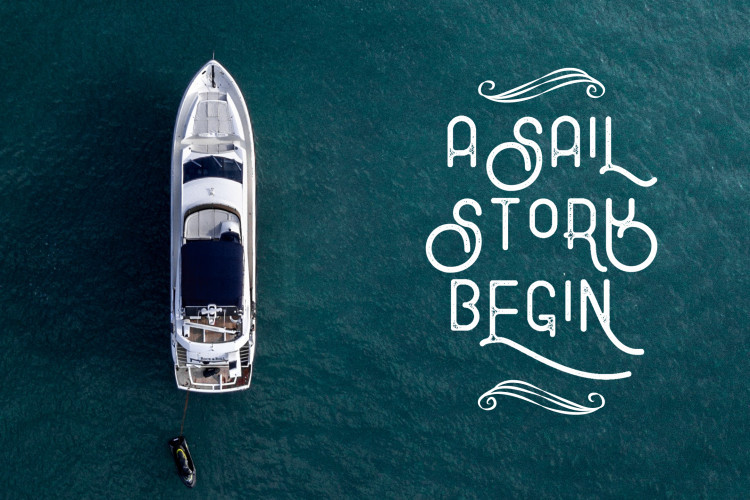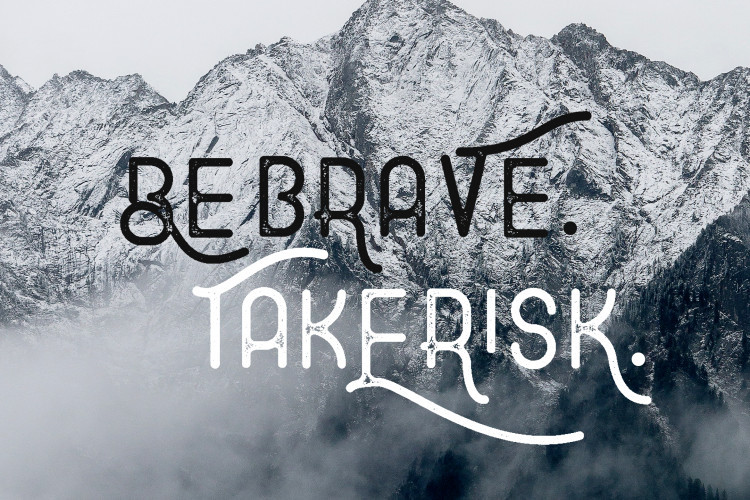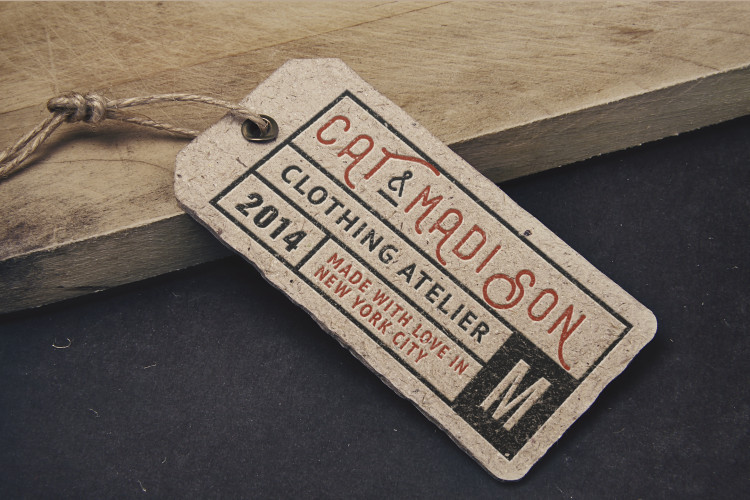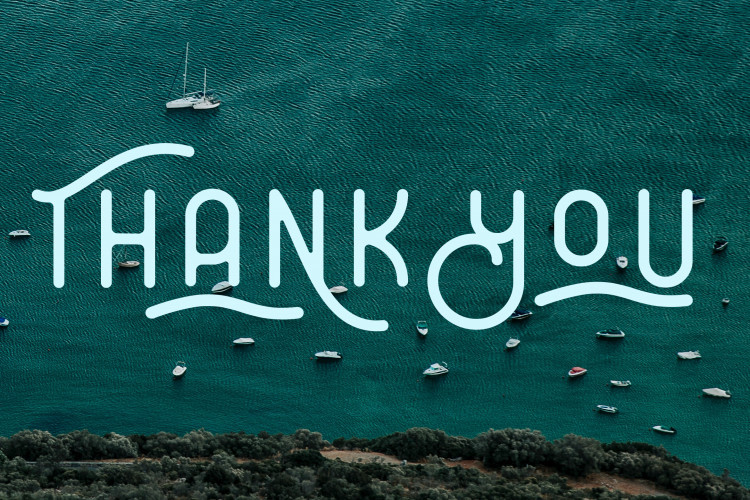
Befonts introducing a new handmade stamp effect typeface was built with a distressed vintage feel. Explore Stylish Font designed and shared by Akaitype Studio. A Stylish typeface with two style , regular and rough stamp. Lovingly handmade, and manipulated with tons of ink and alot of mess. Explore good for clothing design, quotes, and branding.